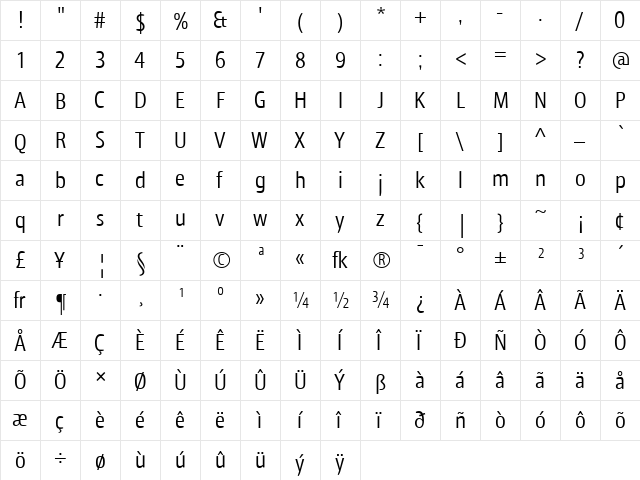
Dione Regular
| Foundry | Dino dos Santos _ DSType |
Design Context for Dione Typeface
Dione takes a measured approach to typography — its balanced proportions and neutral character make it a reliable workhorse for both digital and print work.